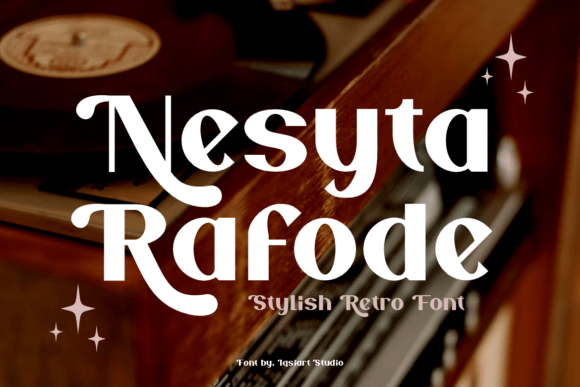
Nesyta Rafode Font: A Timeless Typeface for Modern Design
In the world of typography, fonts play a crucial role in conveying the tone and aesthetic of a design. For designers seeking a typeface that exudes elegance, sophistication, and a touch of playfulness, Nesyta Rafode font is an excellent choice. This stylish retro font has gained popularity among designers for its unique blend of classic and modern elements, making it a versatile tool for a wide range of design projects.
The Unique Aesthetic of Nesyta Rafode
Nesyta Rafode typeface boasts a distinctive aesthetic that sets it apart from other fonts. Its design combines flowing curves with structured forms, creating a balanced look that is both nostalgic and fresh. This blend of classic and modern elements makes Nesyta Rafode a standout choice for designers who want to evoke a sense of vintage sophistication with a contemporary edge.
The font’s clean, well-defined letterforms ensure excellent readability, making it suitable for a variety of applications, from body text to headings. The stylish details, however, add a touch of personality and charm, elevating the font from a simple, utilitarian typeface to a design statement.
Versatility in Design
One of the key advantages of Nesyta Rafode font is its versatility. This font is perfectly suited for a wide range of projects, including:
- Logo Design: Create a beautiful, elegant logo that stands out from the crowd.
- Posters: Design eye-catching posters that grab attention and leave a lasting impression.
- Album Covers: Add a touch of class and sophistication to music album covers.
- Packaging: Elevate product packaging with a font that exudes elegance and refinement.
Whether you’re working on a branding project, advertising materials, or editorial design, Nesyta Rafode font provides the perfect combination of style and functionality.
The Benefits of Using Nesyta Rafode Font
So, why choose Nesyta Rafode font for your design projects? Here are some benefits that make this font an excellent choice:
- Unique Aesthetic: Nesyta Rafode font offers a distinctive blend of classic and modern elements.
- Versatility: Suitable for a wide range of design projects, from logos to packaging.
- Readability: Clean, well-defined letterforms ensure excellent readability.
- Elegance and Sophistication: Adds a touch of class and refinement to any design.
Tips for Using Nesyta Rafode Font
To get the most out of Nesyta Rafode font, here are some tips for using this typeface in your design projects:
- Experiment with Font Sizes: Nesyta Rafode font looks great in a variety of font sizes, from large headings to smaller body text.
- Play with Typography: Use the font’s glyphs, swashes, and alternate characters to create unique typography designs.
- Combine with Other Fonts: Pair Nesyta Rafode font with other fonts to create a distinctive and harmonious design.
- Use in Branding: Take advantage of the font’s elegance and sophistication to create a strong brand identity.
Nesyta Rafode font is a stylish retro typeface that offers a unique blend of classic and modern elements. Its versatility, readability, and PUA encoding make it an excellent choice for a wide range of design projects. Whether you’re a seasoned designer or just starting out, this font is a must-have in your toolkit.